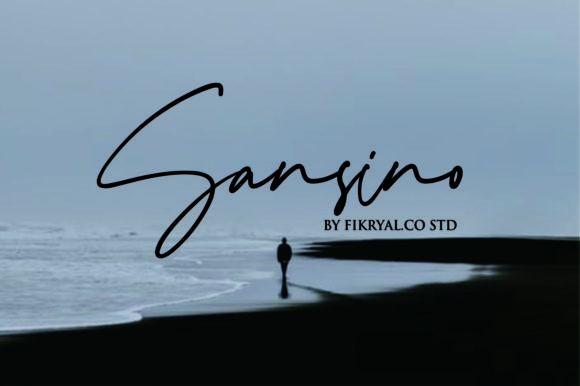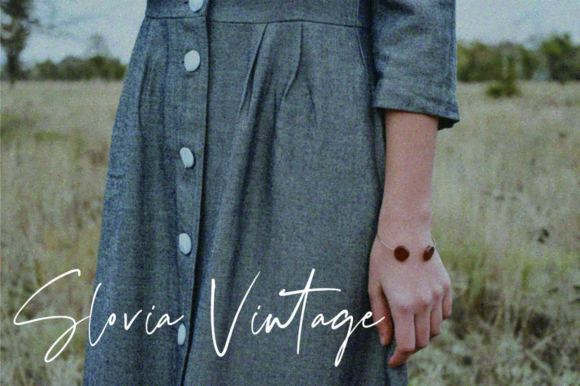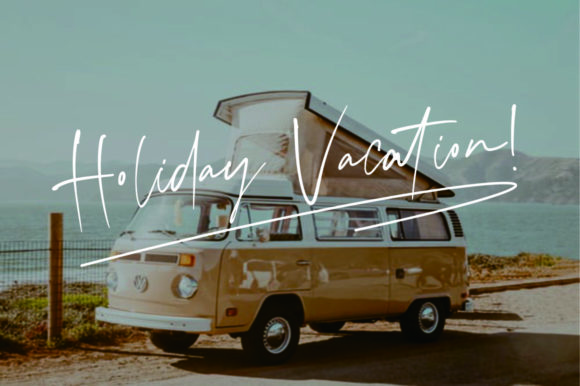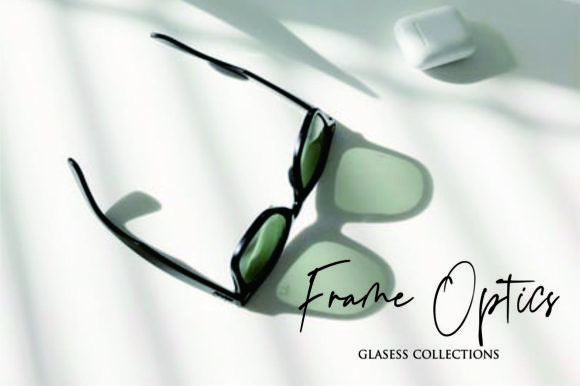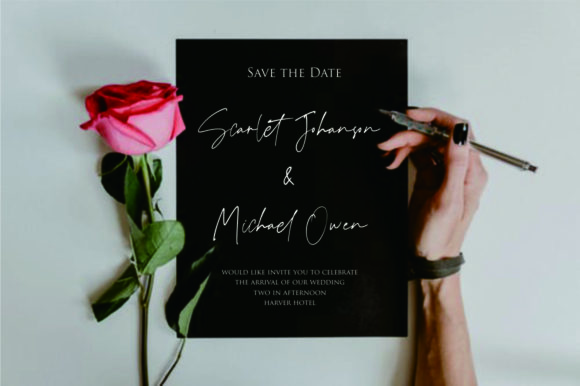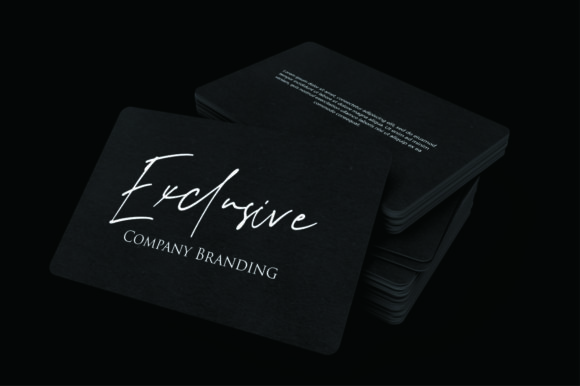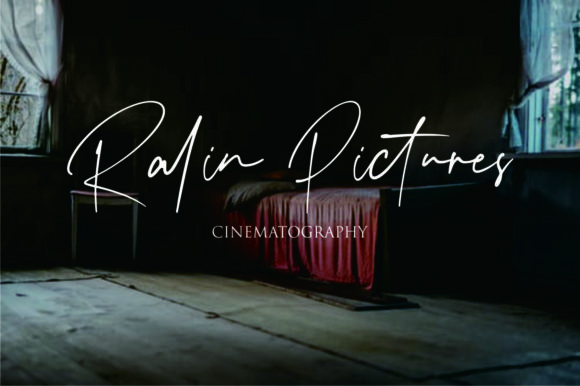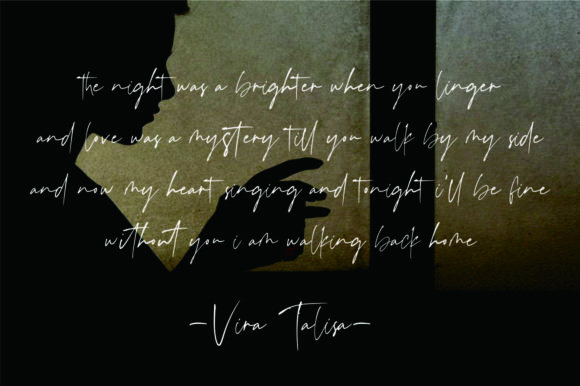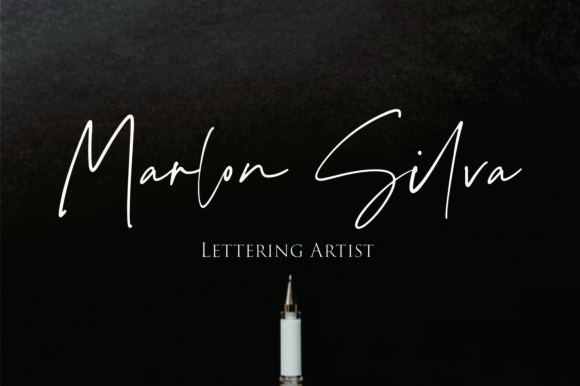
Sansino Font
About Sansino Font
Sansino is a sweet and stunning script font that will turn any design idea into a true standout. Get inspired by its unique charm!